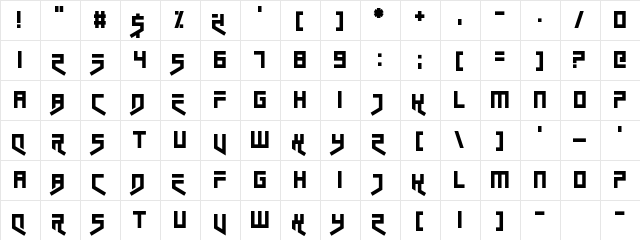
Closet Dwellers Regular
Design Context for Closet Dwellers Typeface
Closet Dwellers is a composed and adaptable typeface that performs quietly and consistently across a wide range of design contexts.
Pro Tip: Pair Closet Dwellers with a font of contrasting weight or personality to build a more expressive typographic hierarchy.